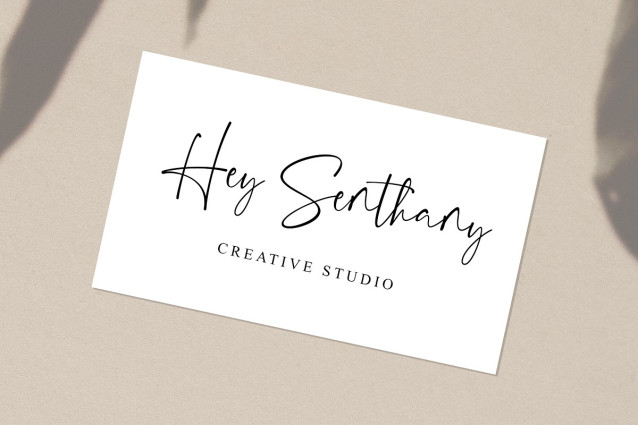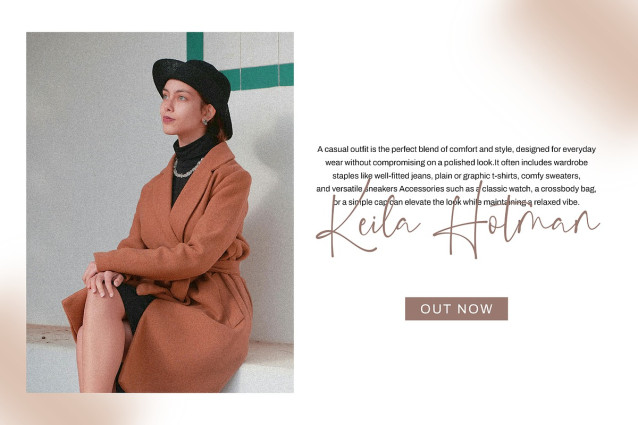
Belathine Script Font
Belathine Script Font is a stunning calligraphy font that embodies elegance, modernity, and sophistication. Designed with smooth strokes and delicate curves, this font brings a graceful and natural handwritten feel, making it perfect for various creative projects.